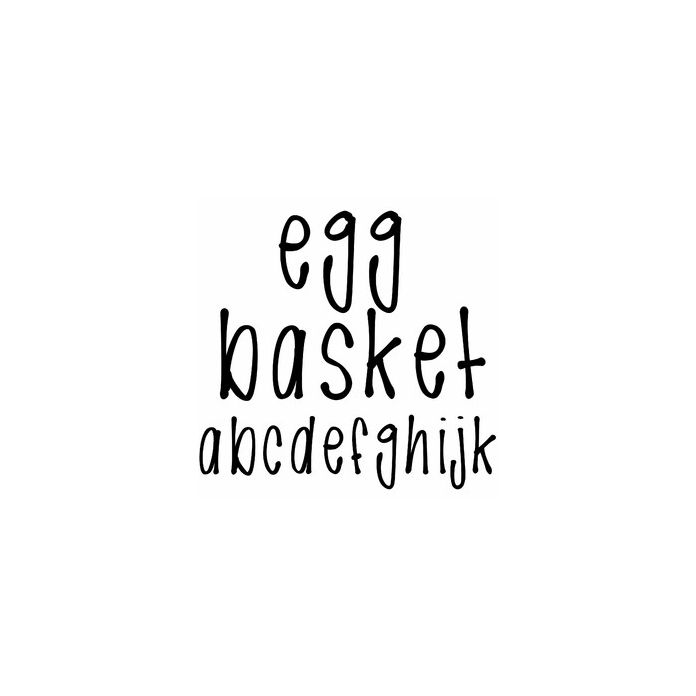
Egg Basket is a playful gel marker handwriting font, fun for Easter crafts, monograms, labels, planners, and personalization projects. Includes alphabet, numbers, and punctuation.